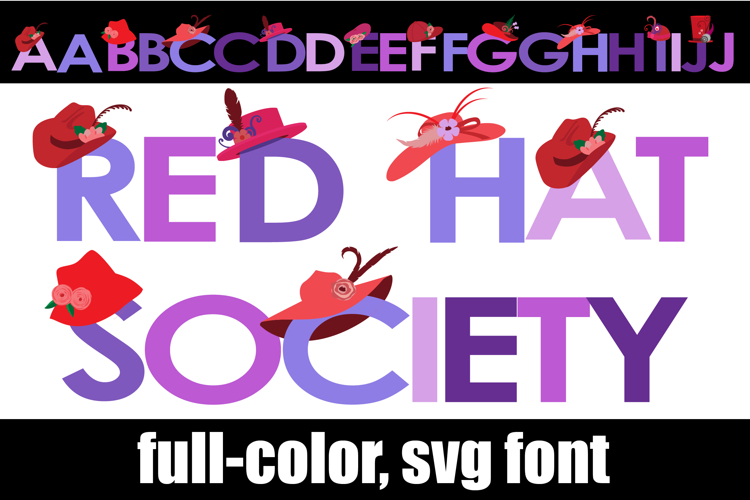
Red Hat Society Color Font
This full-color, font is a sans serif in a purple and red color palette wearing fun red hats. There is an alt case of additional colors of each letter that you can access through your system's character map.